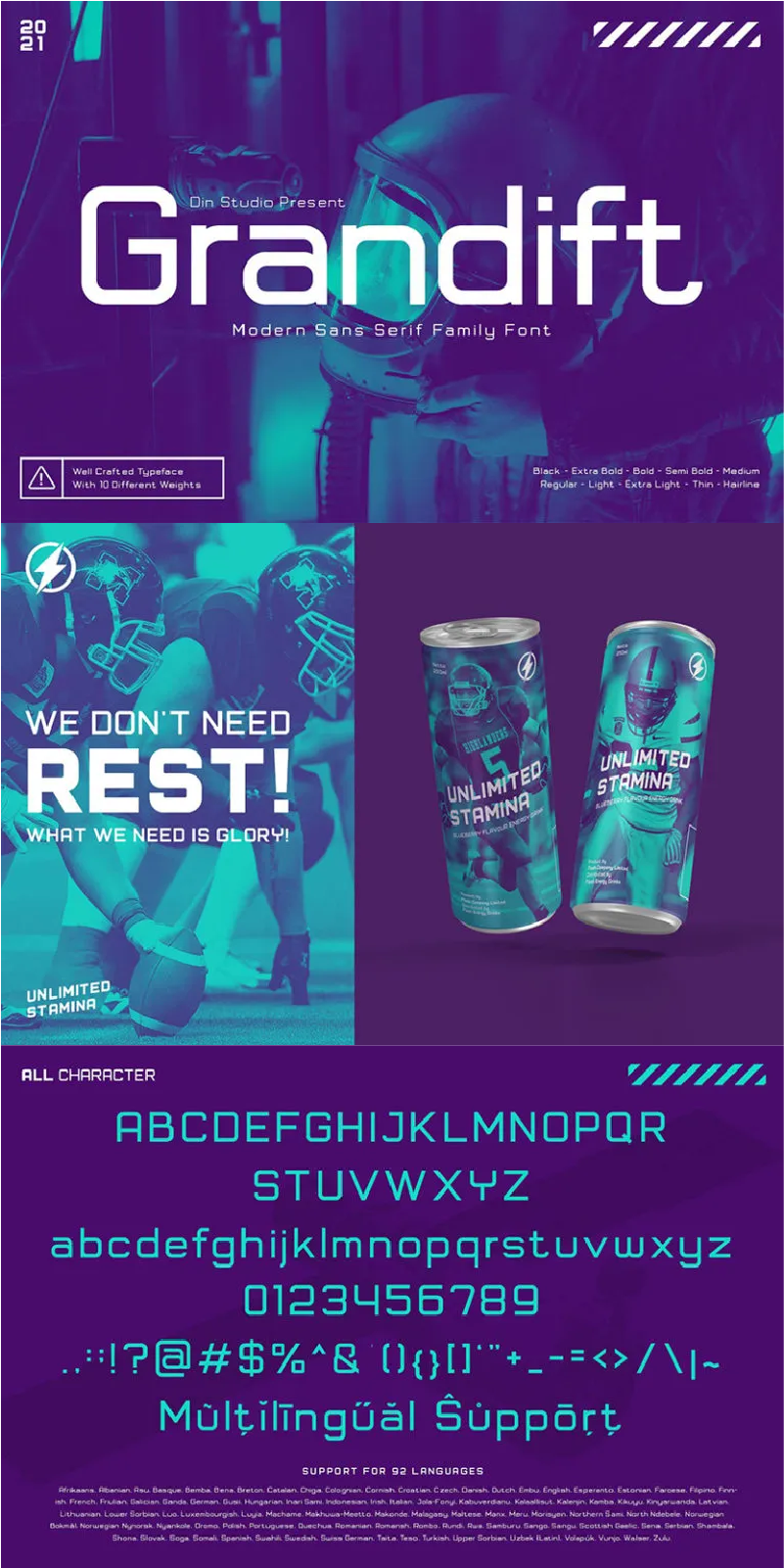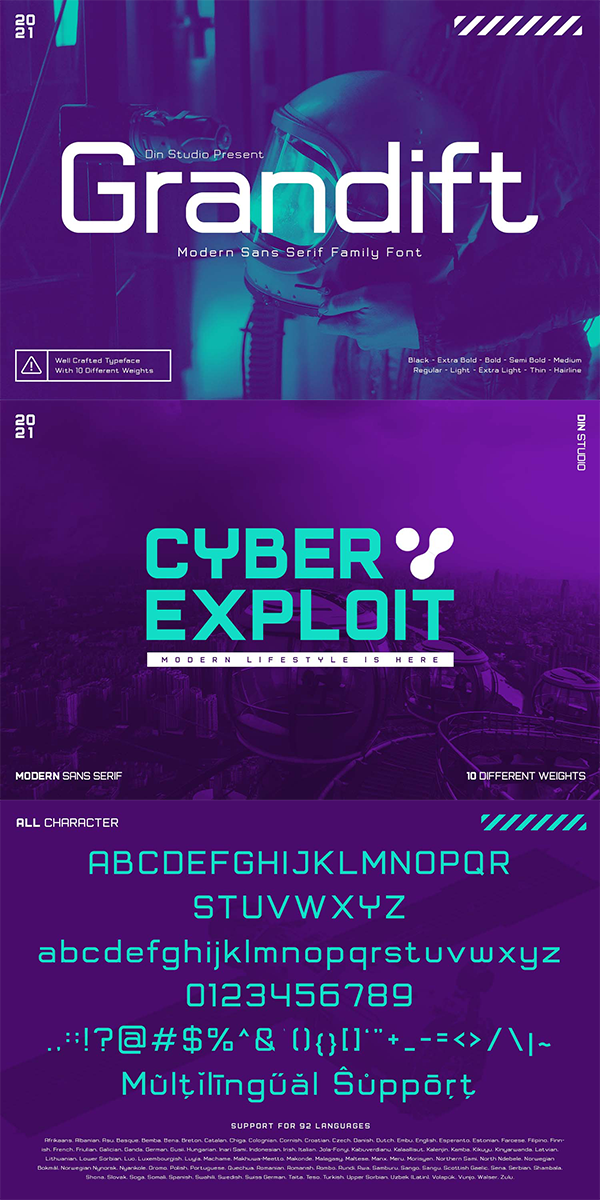
Grandift Font
About Grandift
Grandift- Sans Serif Font Family
A package that will delight you. With this font family you will get so many solution to your projects Bring your projects to life and add a touch of modernity with Grandift. This font creates a clean design look, while at the same time being very readable and clear. Use it for your headings, logos, business cards, printed quotes, invitations, packaging, resumes, and even your website or social media branding.
Grandift Hairline
Grandift Thin
Grandift Light
Grandift Regular
Grandift Medium
Grandift Semi Bold
Grandift Bold
Grandift Extra Bold
Grandift Black